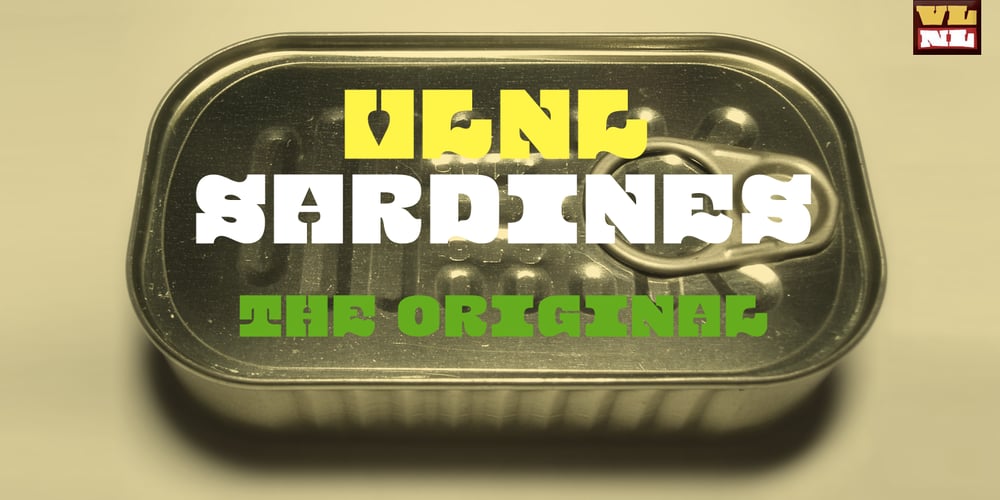
VLNL Sardines Font Family was designed by Jacques Le Bailly and published by VetteLetters. VLNL Sardines contains 1 styles and family package options. Sardines is a project by Jacques Le Bailly aka Baron von Fonthausen. This original version is the one that saw the light as a monospaced font student project and which would eventually grow into Vette Letters’ largest font family (see VLNL Neue Sardines). Sardines is an eclectic mash of classic curves and mathematical measurements, leaving a very distinct typographic flavor. While most of our type is market-fresh, this one comes out of the can, but it’s delicious nonetheless. And it’s great for adventurous BBQ-ing!